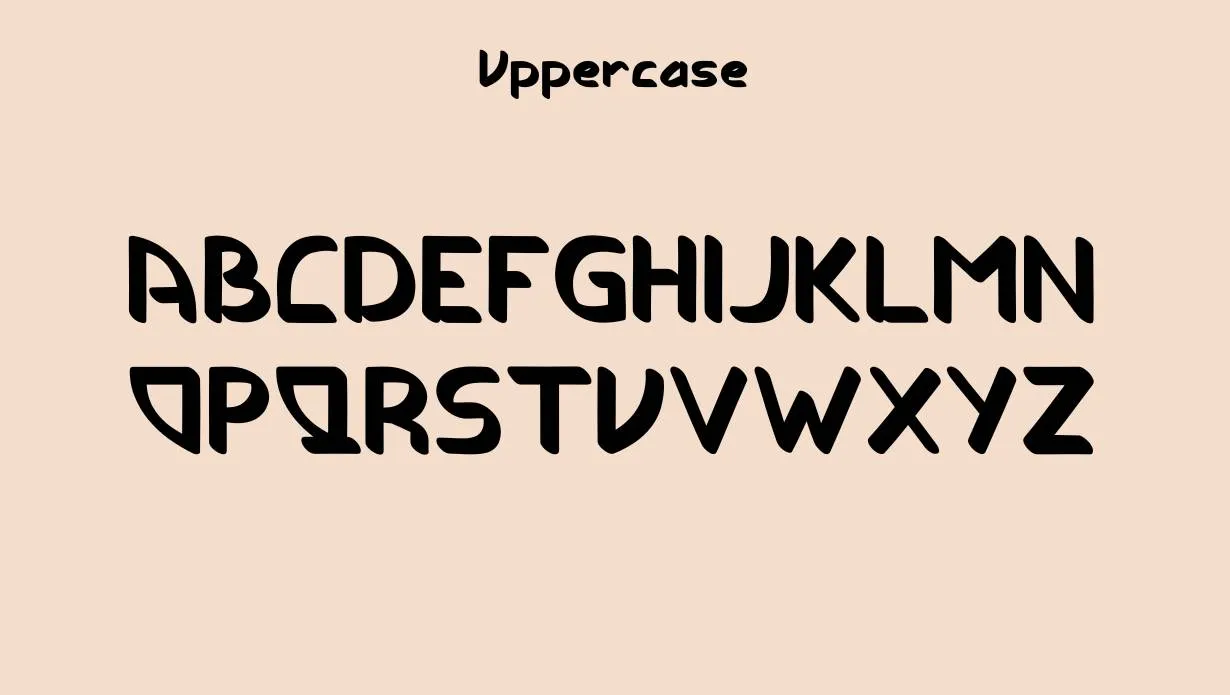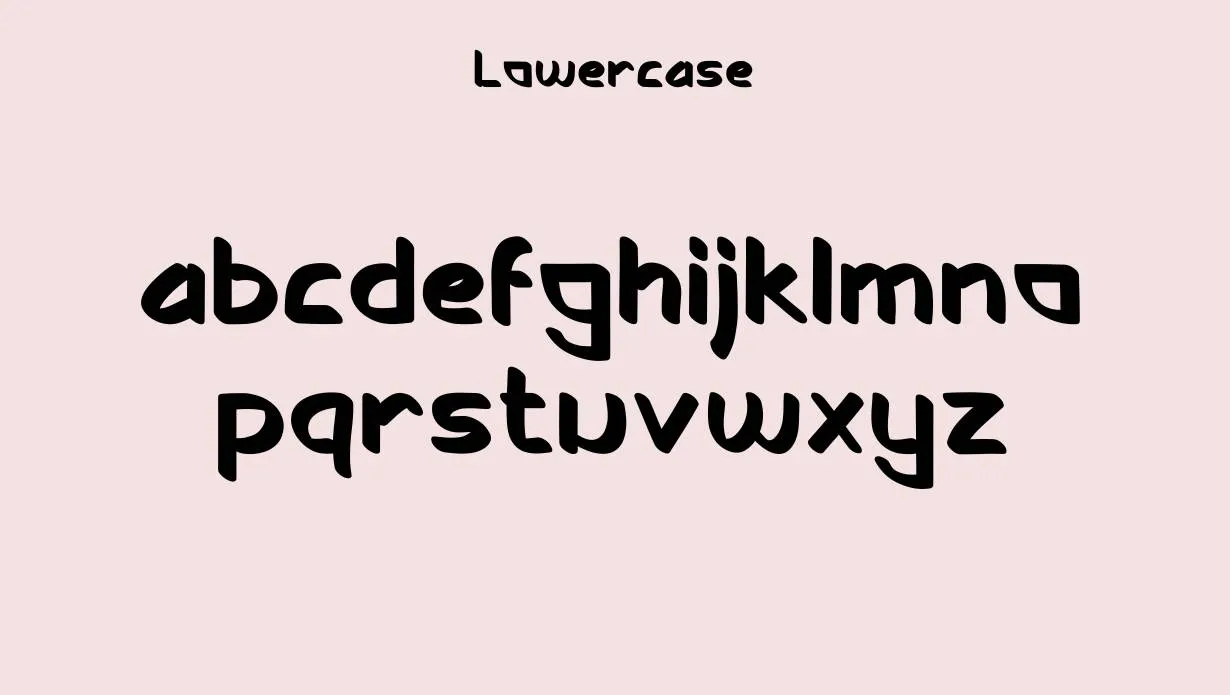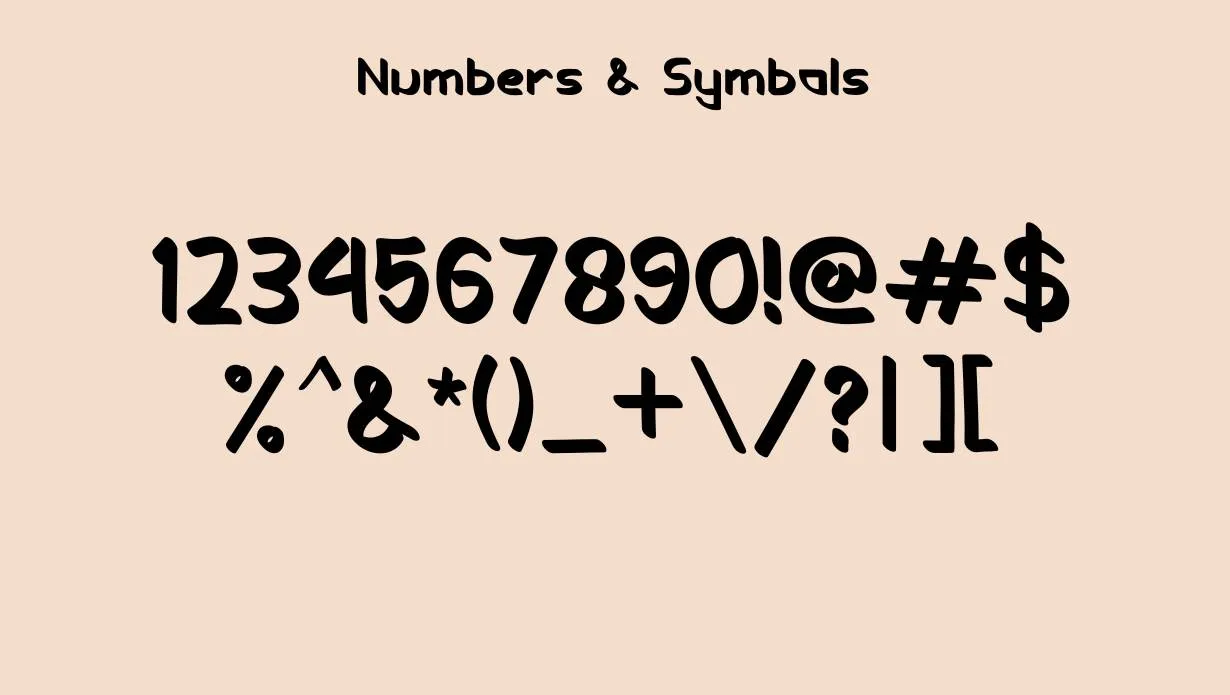
Gondes Font belongs to the Fancy font family which has a unique, cute, and quirky appearance and was made by Sealoung along with TTF and OTF formats.
Gondes Font Family